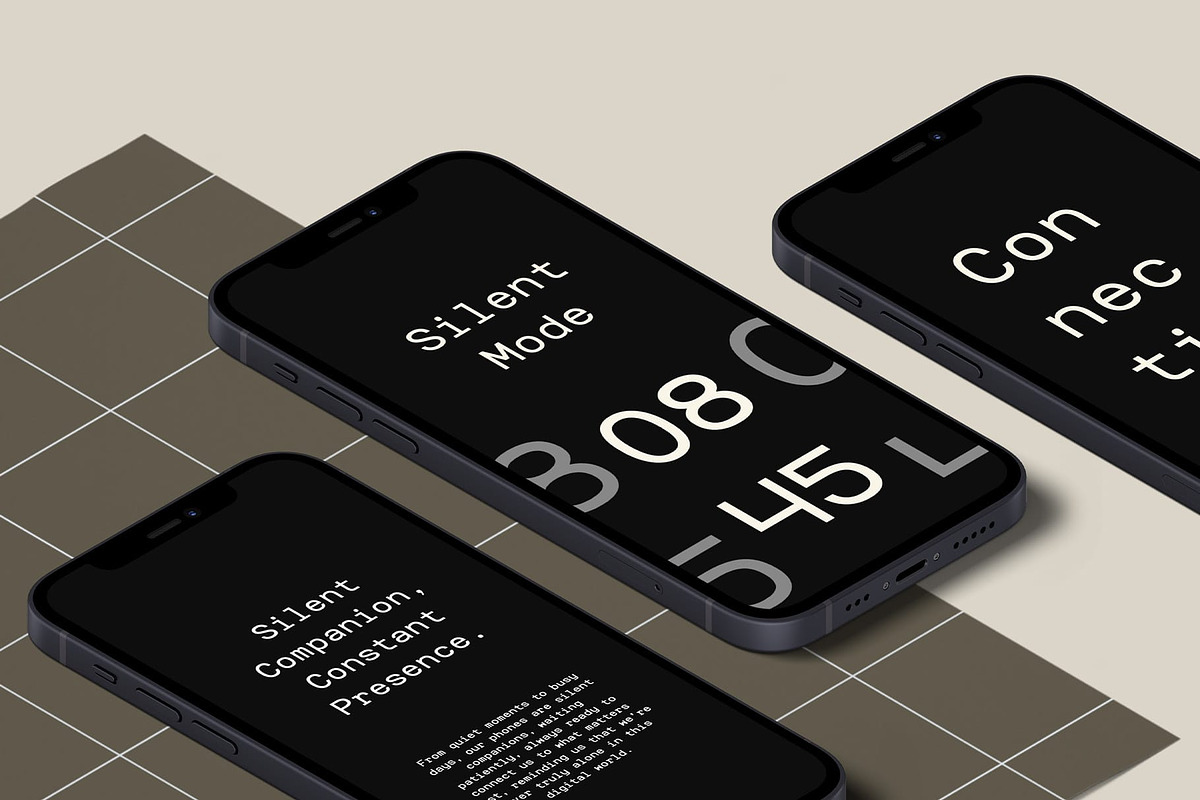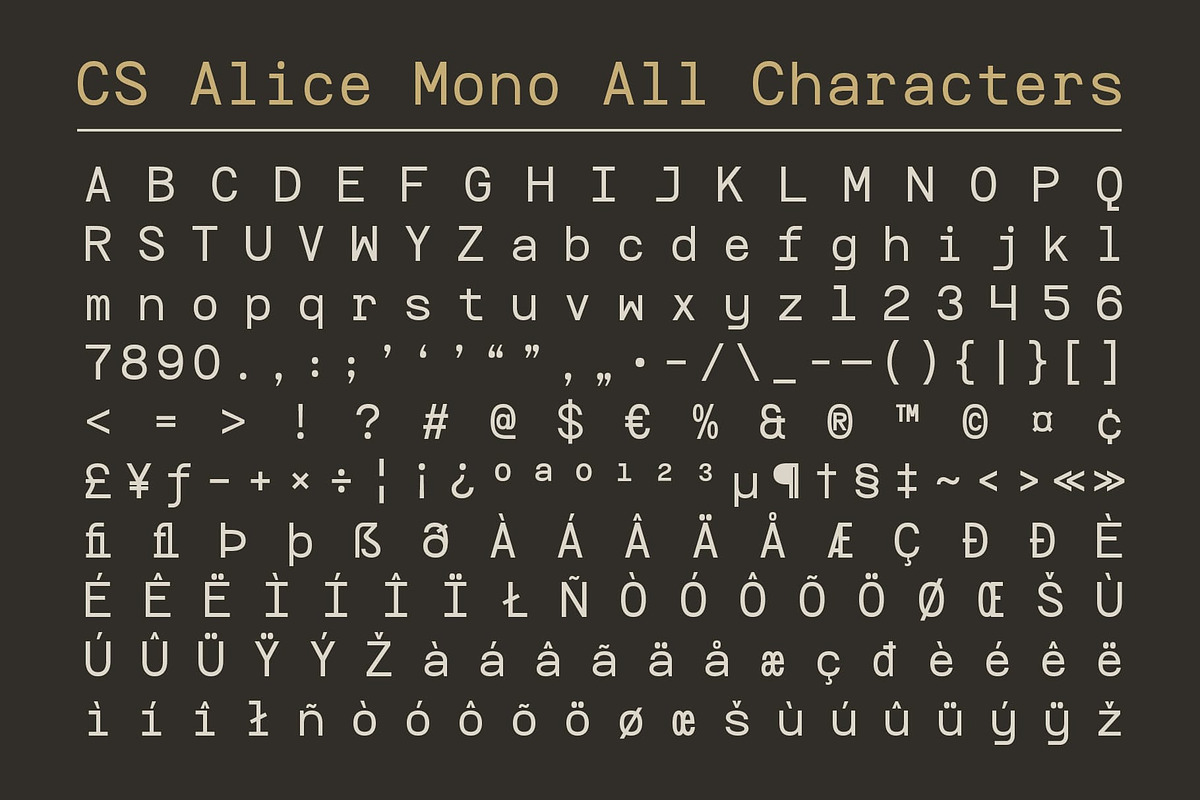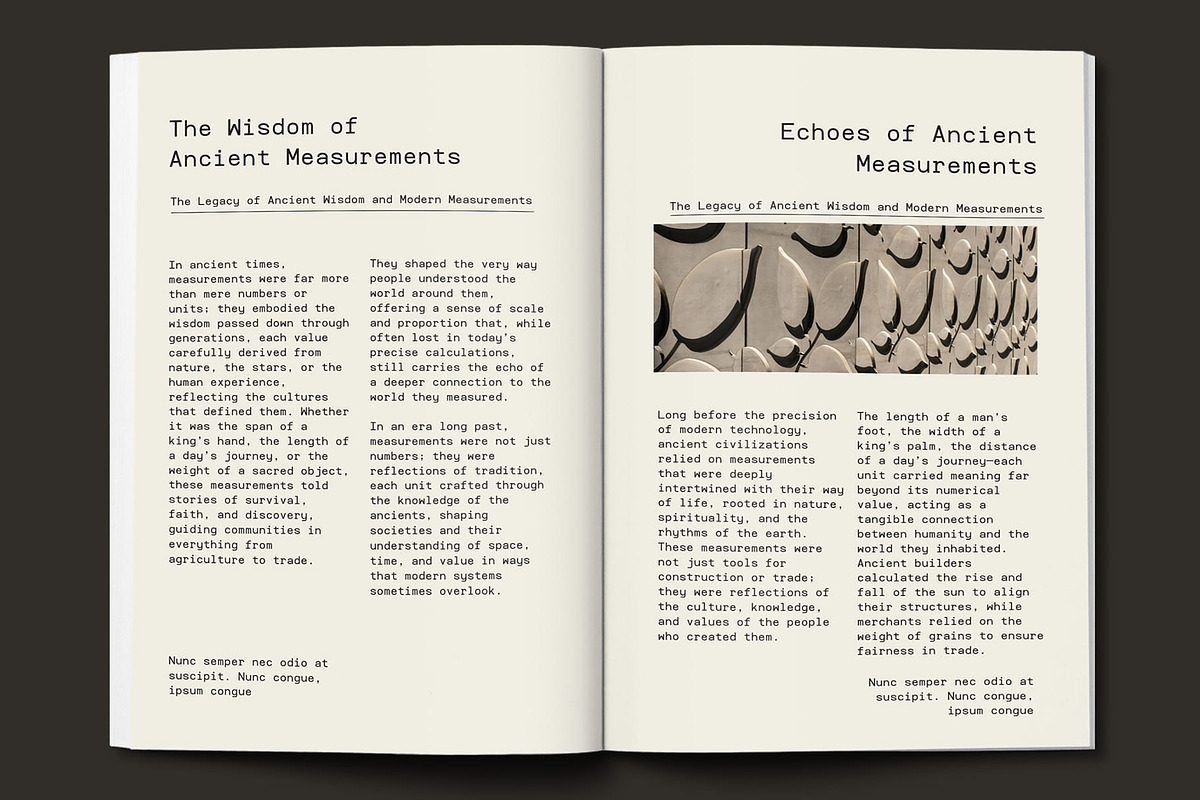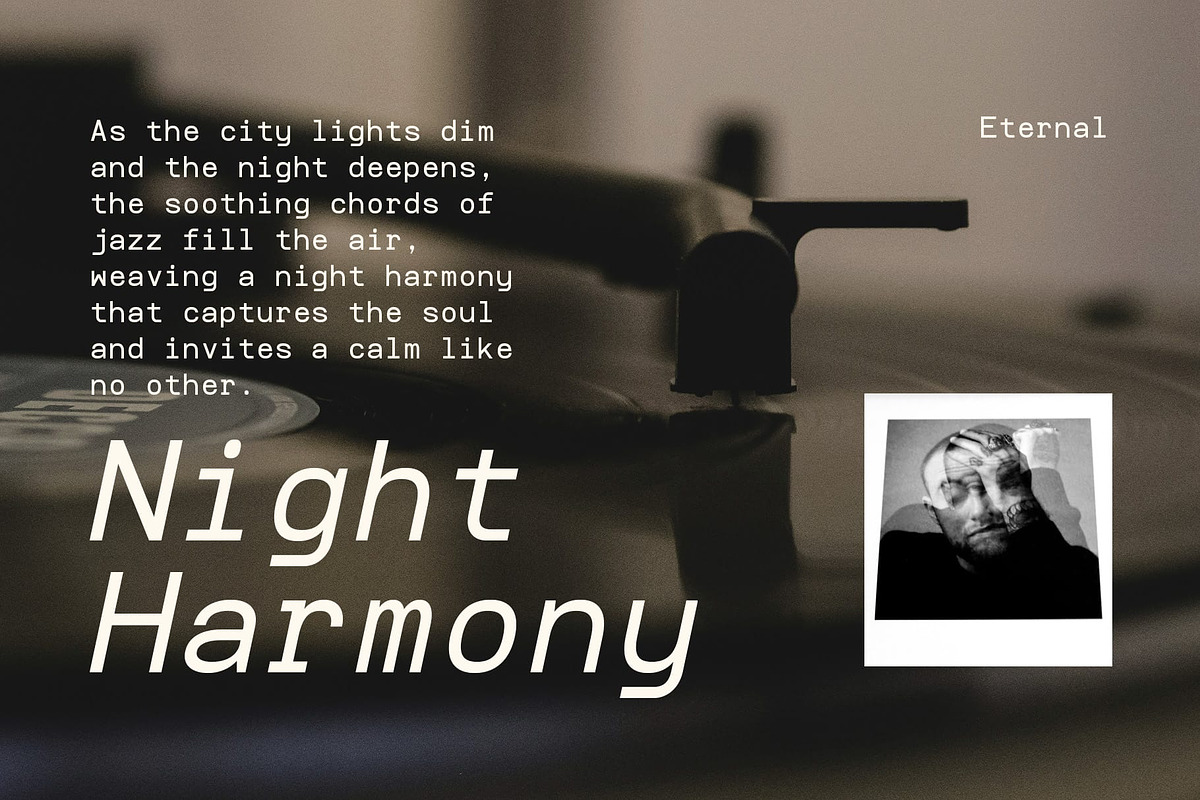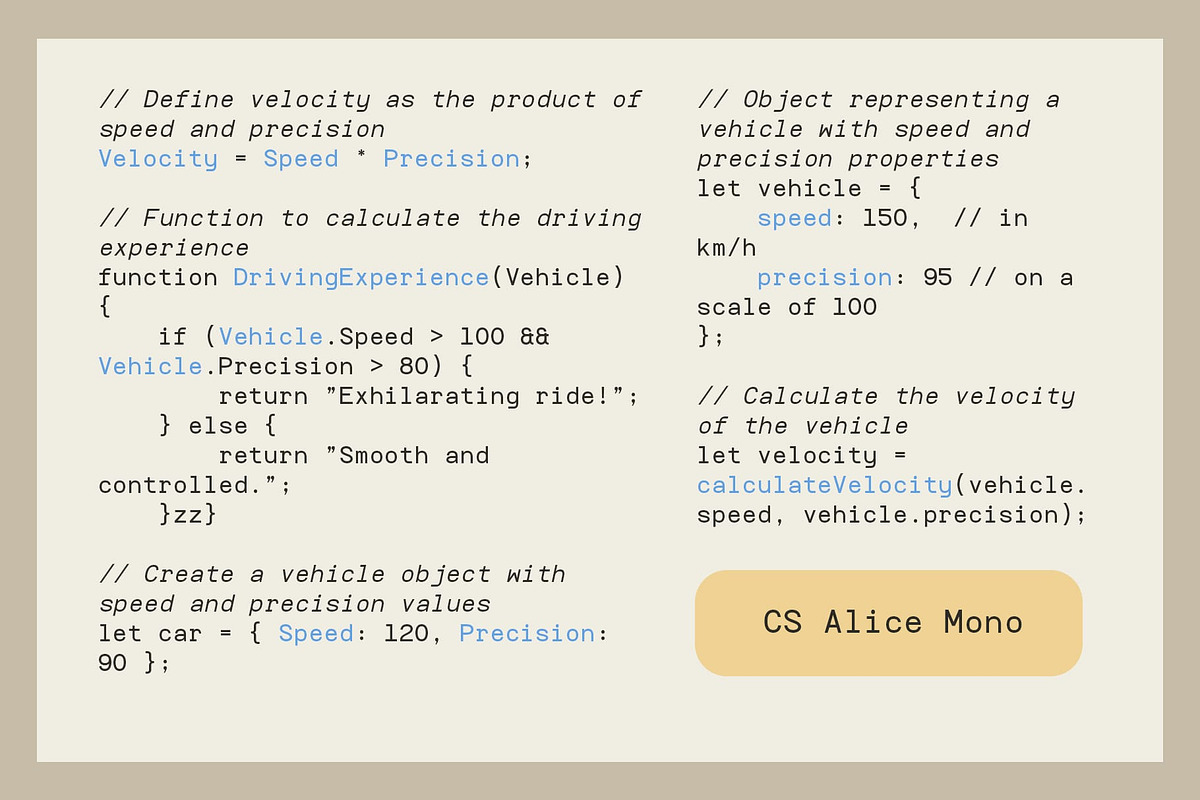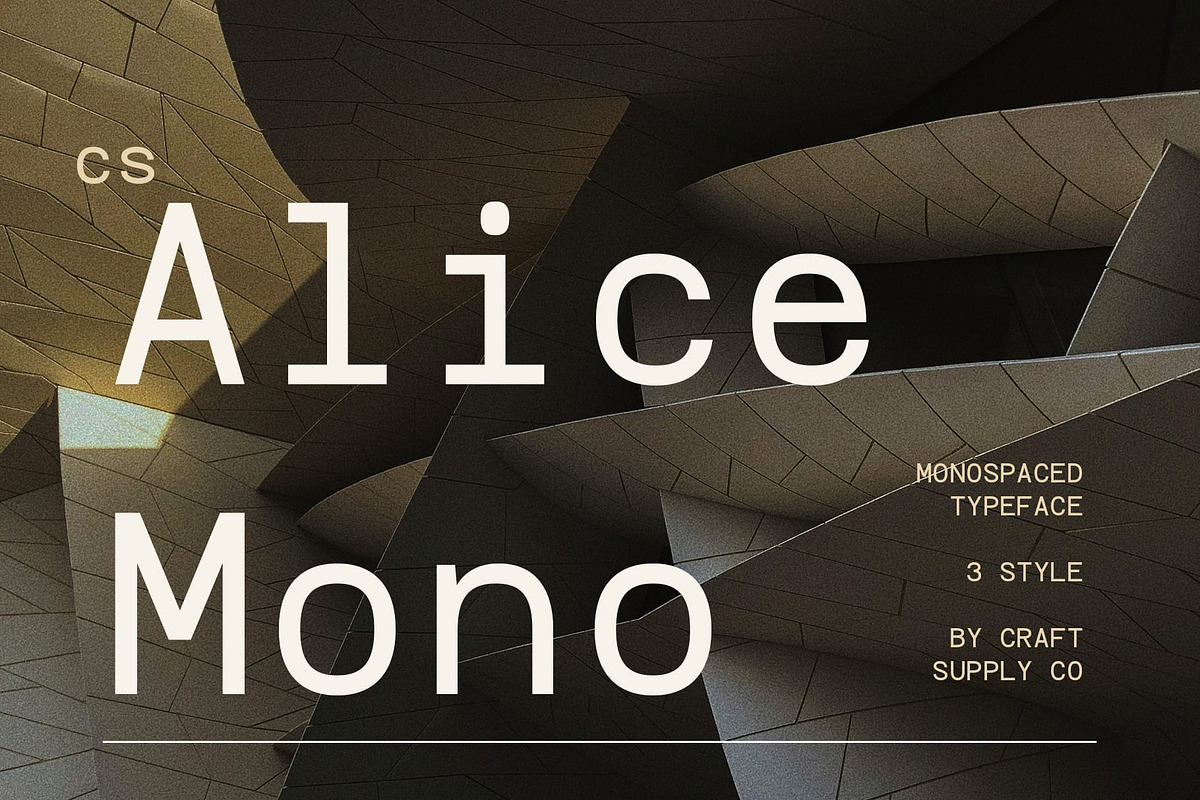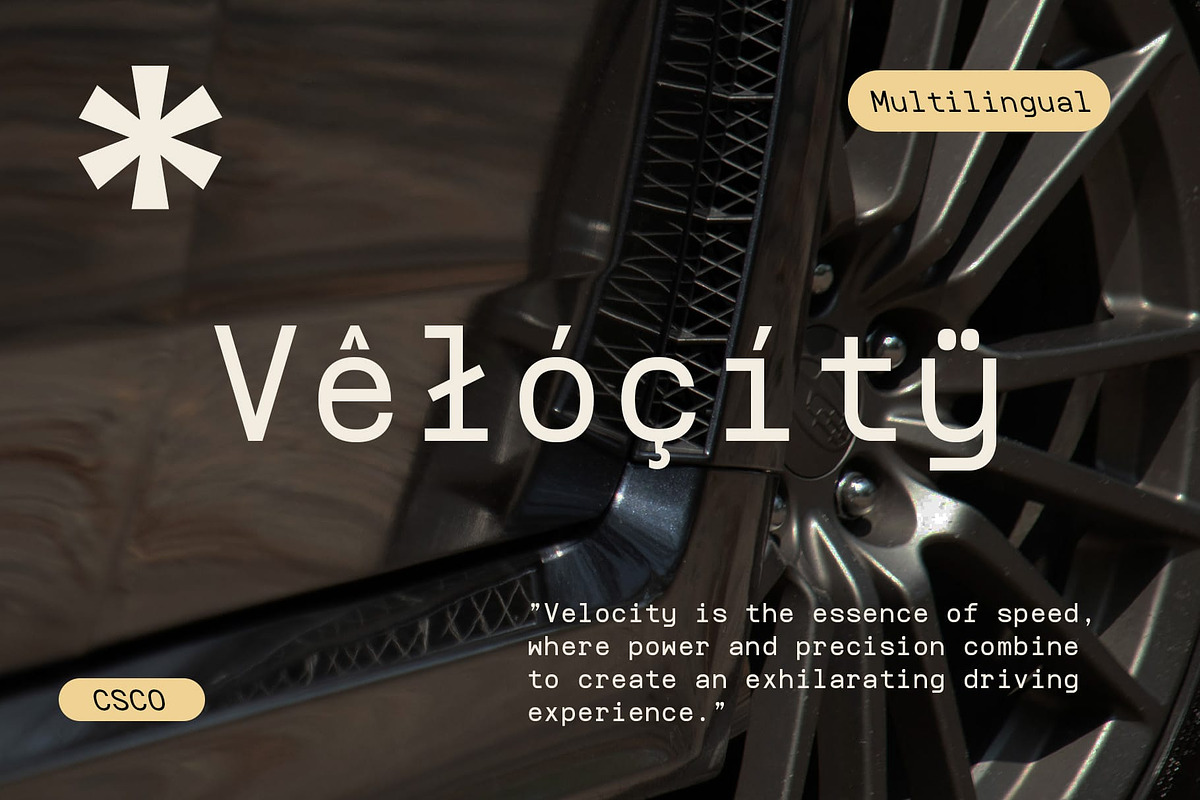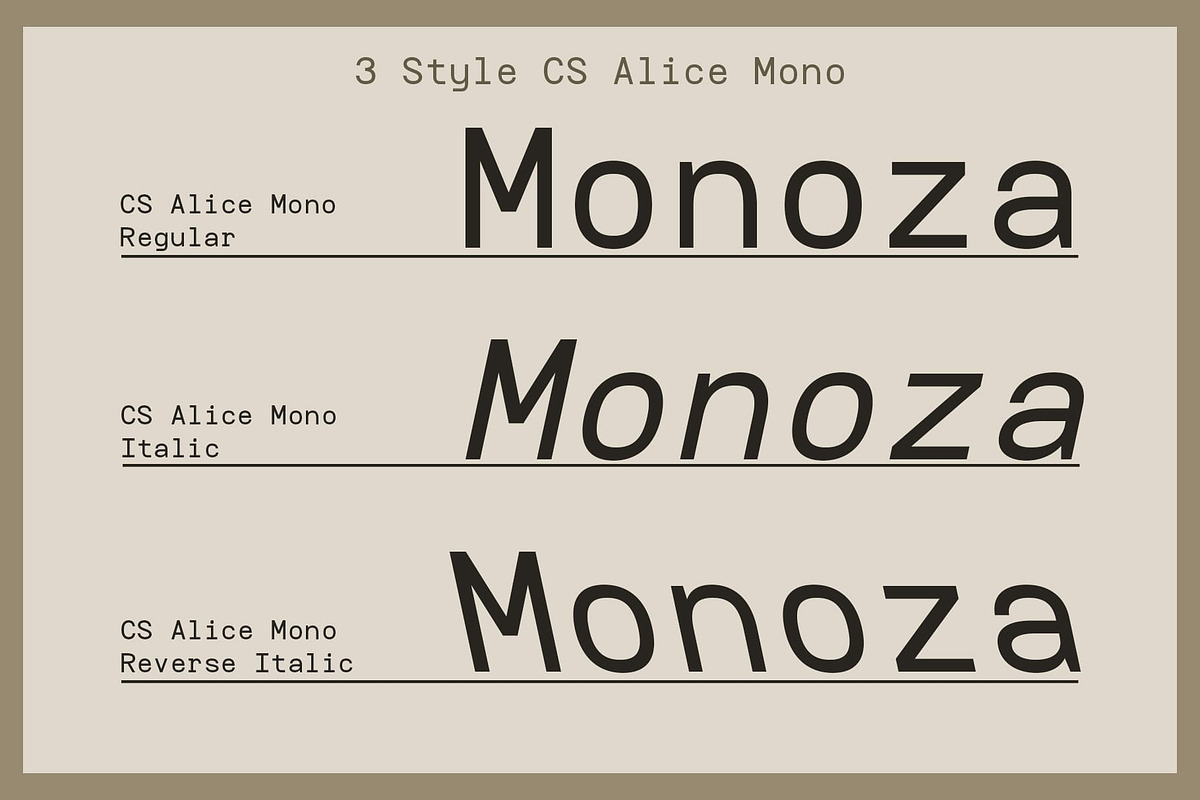
CS Alice Mono – Monospaced Font
CS Alice Mono – Monospaced Font: Precision and Clarity in Every Character
Modern Monospaced Sans Serif with Consistent Spacing CS Alice Mono is a modern monospaced sans serif font that offers consistent letter spacing, ensuring clarity and precision across all designs. Its clean, geometric structure provides a sleek and structured appearance, making it ideal for professional applications. Whether you are working on coding, technical documentation, or digital interfaces, this font delivers the legibility and functionality required for efficient communication.**
Optimal Readability with Uniform Character Width The uniformity in character width gives CS Alice Mono its signature clarity, making it an excellent choice for designs where readability is key. The consistent spacing between letters ensures that each character stands out clearly, reducing eye strain and improving comprehension. This feature is particularly valuable in environments such as programming, where precision and ease of reading are essential for efficient work.
Perfect for Coding, Technical Documentation, and Digital Interfaces CS Alice Mono excels in applications that demand high precision, such as coding, technical manuals, and digital interfaces. Its clear, uniform design makes it a reliable choice for any project where legibility and functionality come first. Whether you’re designing user interfaces or drafting technical documentation, CS Alice Mono’s clean lines and consistent spacing enhance the user experience, ensuring your content is easy to navigate and understand.
- CS Alice Mono Regular
- CS Alice Mono Italic
- CS Alice Mono Reverse Italic